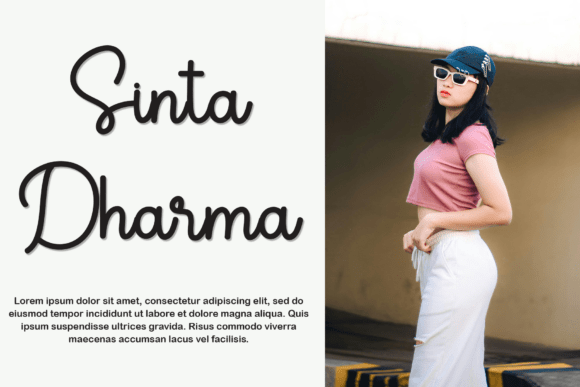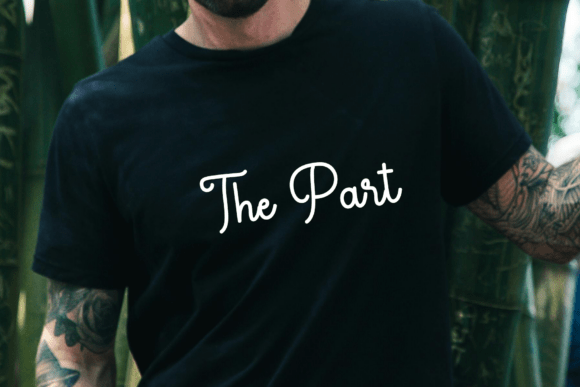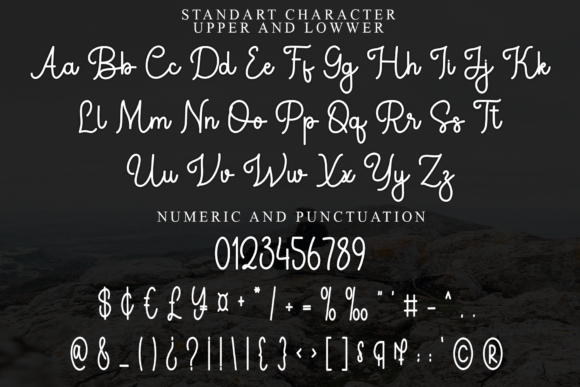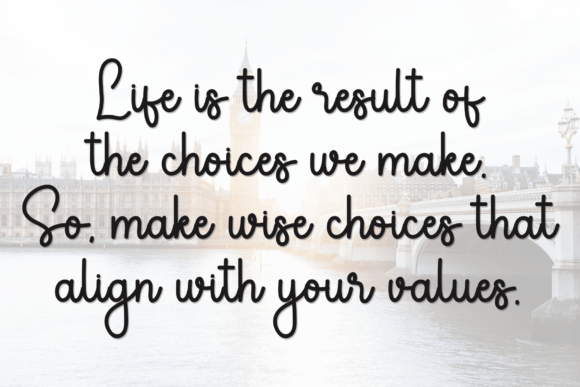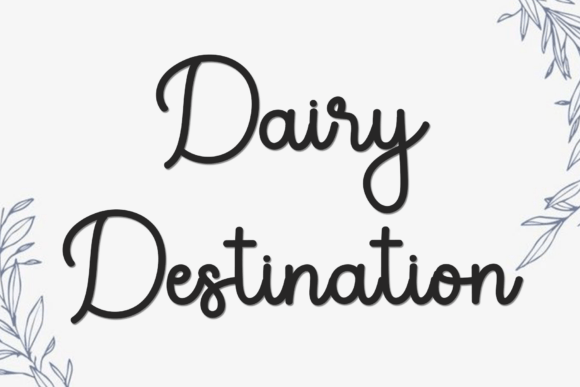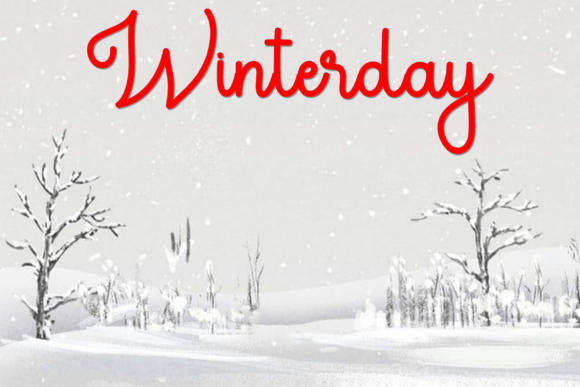
Introduction to Redline Font
Do you remember the excitement of decorating your room for the holidays as a child? The twinkling lights, the colorful ornaments, and the festive wrapping paper all came together to create a magical atmosphere that made the season feel truly special. As a designer, you have the power to recreate that magic in your own creative projects, and one of the key tools in your arsenal is the right typeface.
That’s where the Redline Font comes in – a festive and merry typeface that captures the spirit of the holiday season. With its decorative elements and whimsical flair, this font adds a touch of enchantment to your designs, making it the perfect choice for greeting cards, gift tags, and other holiday-themed projects.
Whether you’re working on a high-quality design resource or a free download for a creative project, the Redline Font is a valuable addition to your design toolbox. Its PUA encoding makes it easy to access all of the amazing glyphs and ligatures, allowing you to customize your design with precision and flair. And with its transparent background, you can easily layer it over your favorite holiday images and graphics to create a truly unique and eye-catching look.
Key Features of Redline Font
- High-quality design resource ideal for creative projects, offering a unique and stylish look.
Honest Review: Redline Font
I recently came across the Redline Font and was excited to dive in and explore its features. As a designer, I’m always on the lookout for high-quality fonts that can elevate my creative projects. In this review, I’ll share my honest thoughts on the Redline Font.
- ✨ High-quality design: The Redline Font boasts a sleek and modern design that’s perfect for any creative project.
- ✨ Transparent background: This feature allows for seamless integration with other design elements, making it a great resource for designers.
- ⚠️ Limited font variations: While the Redline Font is a great addition to any design resource library, it’s limited in terms of font variations.
- ⚠️ Not suitable for complex text: Due to its modern design, the Redline Font may not be the best choice for complex text or intricate typography.
Overall, I’m impressed with the Redline Font and would recommend it to designers looking for a high-quality, modern font for their creative projects. While it has its limitations, it’s a great addition to any design resource library.
Redline Font
The Redline Font is a versatile, high-quality design resource perfect for creative projects. With its transparent background, this font can be easily integrated into various design tools.
Tips for Getting the Most Out of Redline Font
For optimal results, use the Redline Font in conjunction with other high-quality design resources. Experiment with different font sizes, colors, and styles to enhance your creative project.
The Redline Font is suitable for a wide range of creative projects, including:
- Graphic design and branding
- Infographics and data visualization
- Print and digital marketing materials